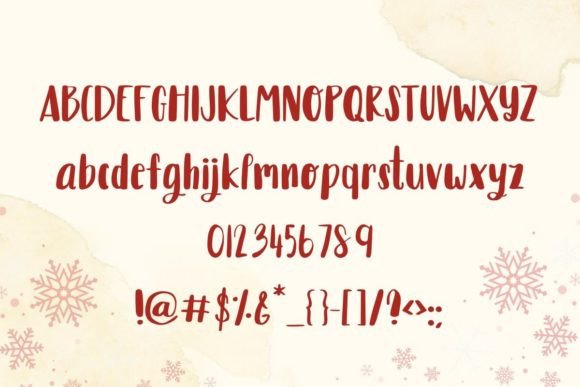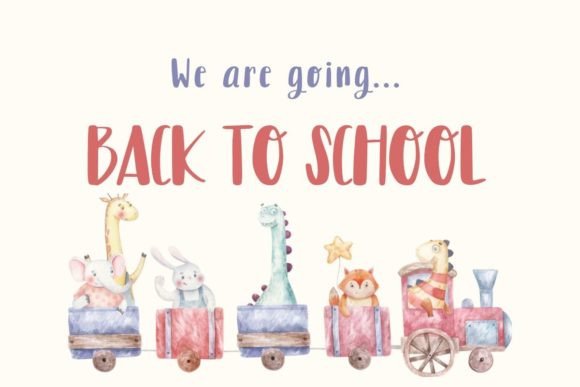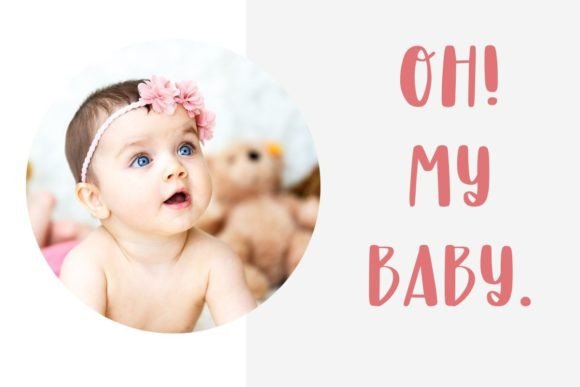
Snowflakes Font
Snowflakes Font : A Fun and Quirky Handwritten Font for Creative Designs
Introducing Snowflakes – a delightful handwritten font that combines fun and quirkiness, making it perfect for a variety of creative design projects. Whether you’re crafting festive Christmas themes or adding playful character to your work, Snowflakes is the ideal choice to bring your ideas to life.
Key Features of Snowflakes Font
• Playful Handwritten Style: Exudes casual charm and whimsy
• Versatile Application: Suitable for festive designs, greeting cards, and more
• Unique Character: Adds a personal touch that captivates your audience
Perfect for Multiple Design Projects
Snowflakes’ adaptability makes it an excellent choice for:
• Christmas-themed designs that spread holiday cheer
• Fun greeting cards that convey joy and warmth
• Eye-catching social media graphics that engage followers
• Creative projects that require a touch of whimsy
• Unique branding materials for playful businesses
Enhancing Your Creative Vision
With Snowflakes, you gain access to a typeface that radiates creativity and charm. Its handwritten style ensures that your content stands out while adding a fun and inviting element to your designs.
Digital and Print Versatility
Whether you’re creating digital designs or print materials, Snowflakes maintains its playful appeal. Use it for:
• Engaging website headers that capture attention
• Memorable email marketing campaigns during the holiday season
• Distinctive product packaging that reflects a fun brand personality
Customization Options
Snowflakes offers a range of customization options, allowing you to tailor your text to match your creative vision perfectly. This flexibility empowers you to create designs that reflect your unique style and artistic preferences.
Snowflakes is more than just a font; it’s a design asset that brings joy and playfulness to your creative projects. Its quirky handwritten style inspires delightful designs that leave a lasting impression on your audience. By incorporating Snowflakes into your designs, you can create visually appealing content that engages and resonates with your audience. Whether you’re a seasoned designer or someone looking to add a touch of fun to personal projects, Snowflakes offers the perfect blend of charm and functionality. Consider pairing Snowflakes with clean sans-serif fonts for contrast or complementing it with other script fonts for a dynamic typographic palette. This versatility allows you to create designs that are both whimsical and harmonious across various mediums. Embrace the playful spirit of Snowflakes today and watch as it transforms your creative ideas into joyful and engaging designs!